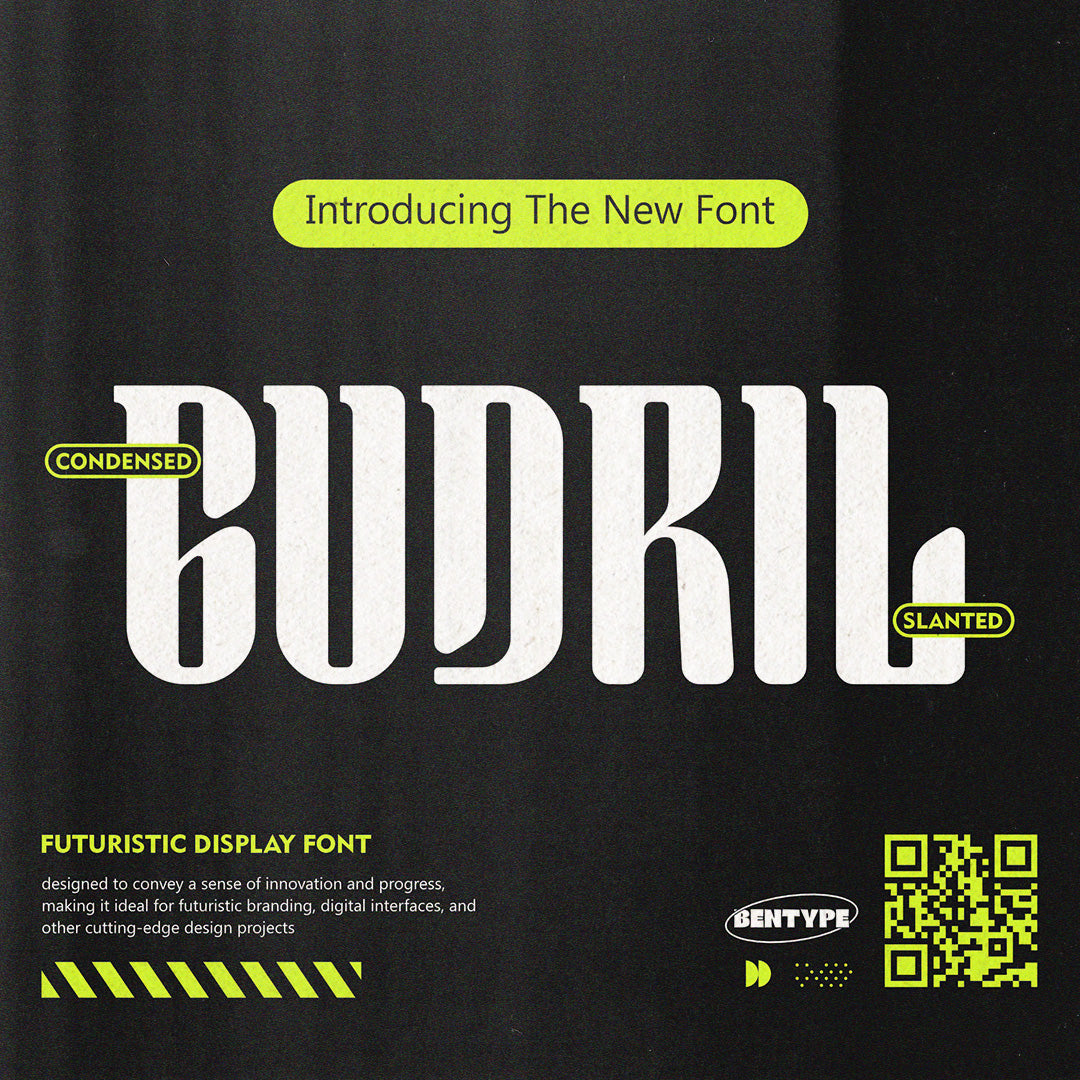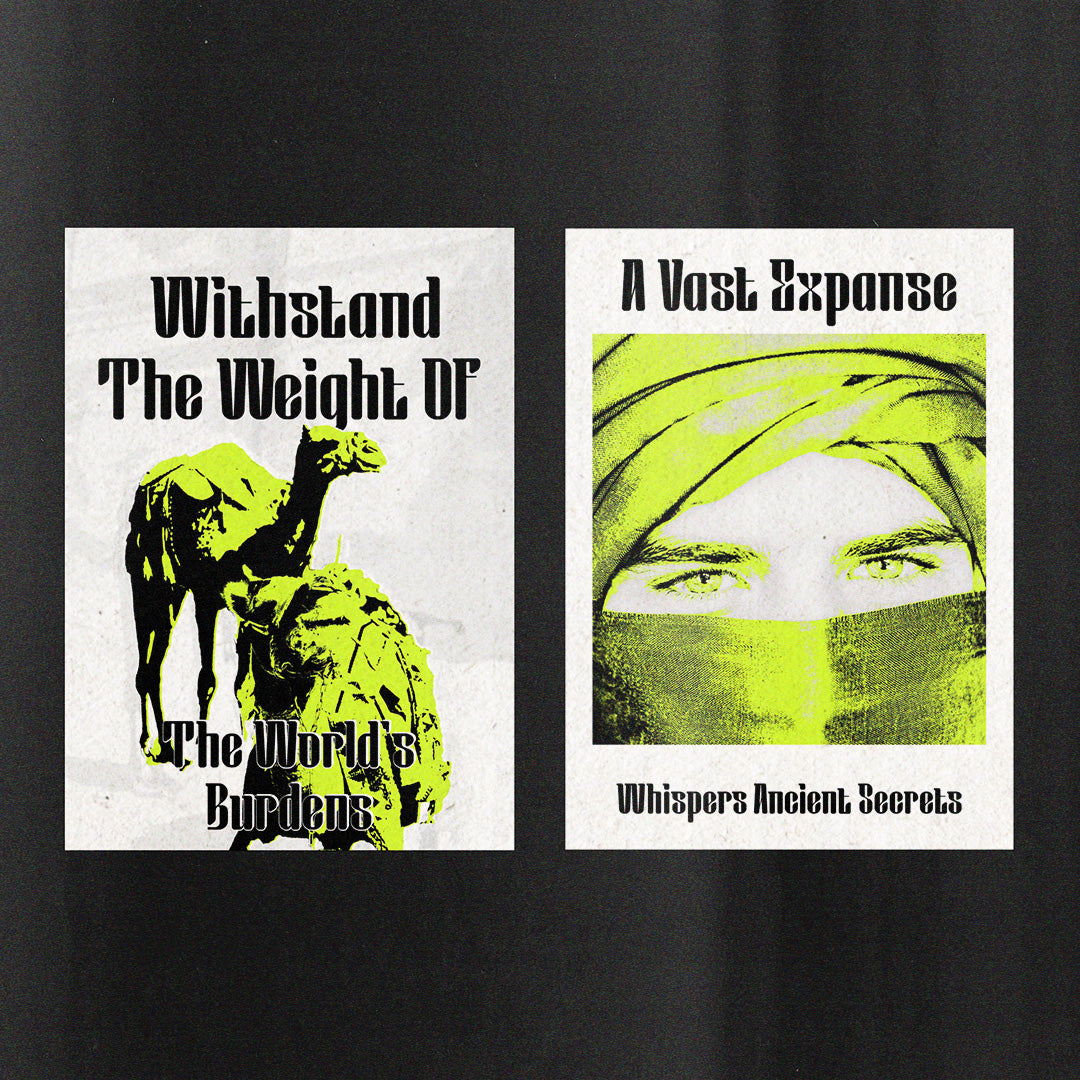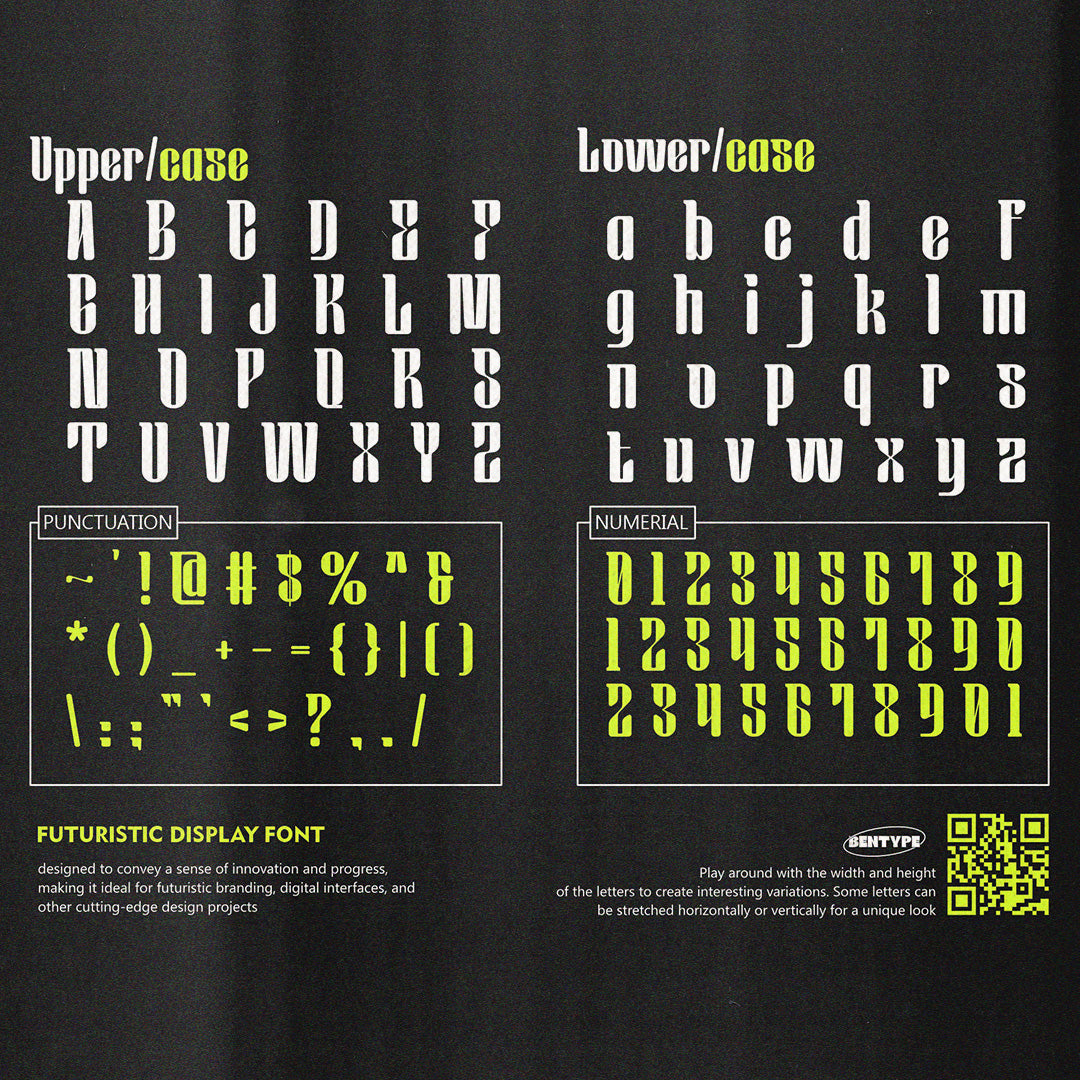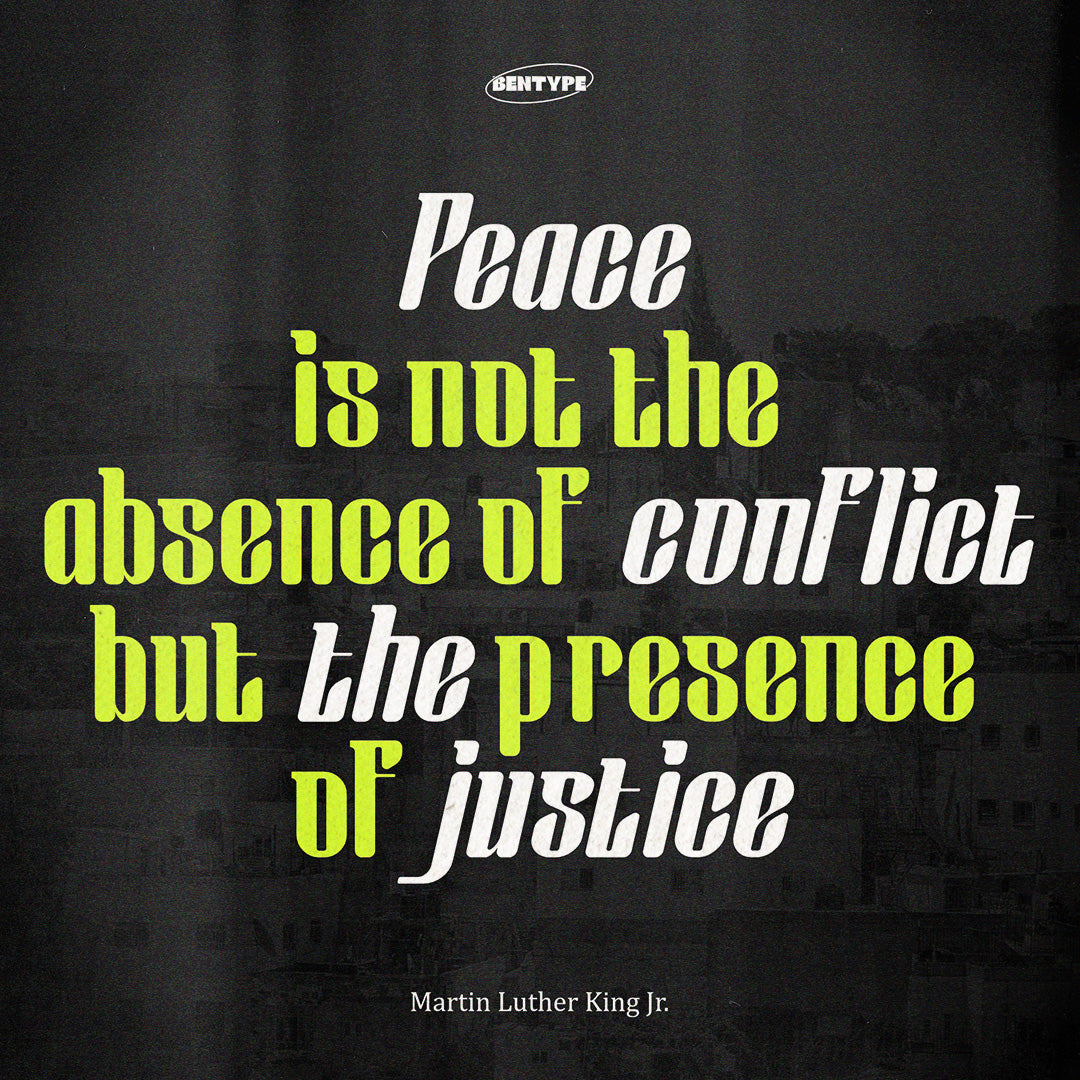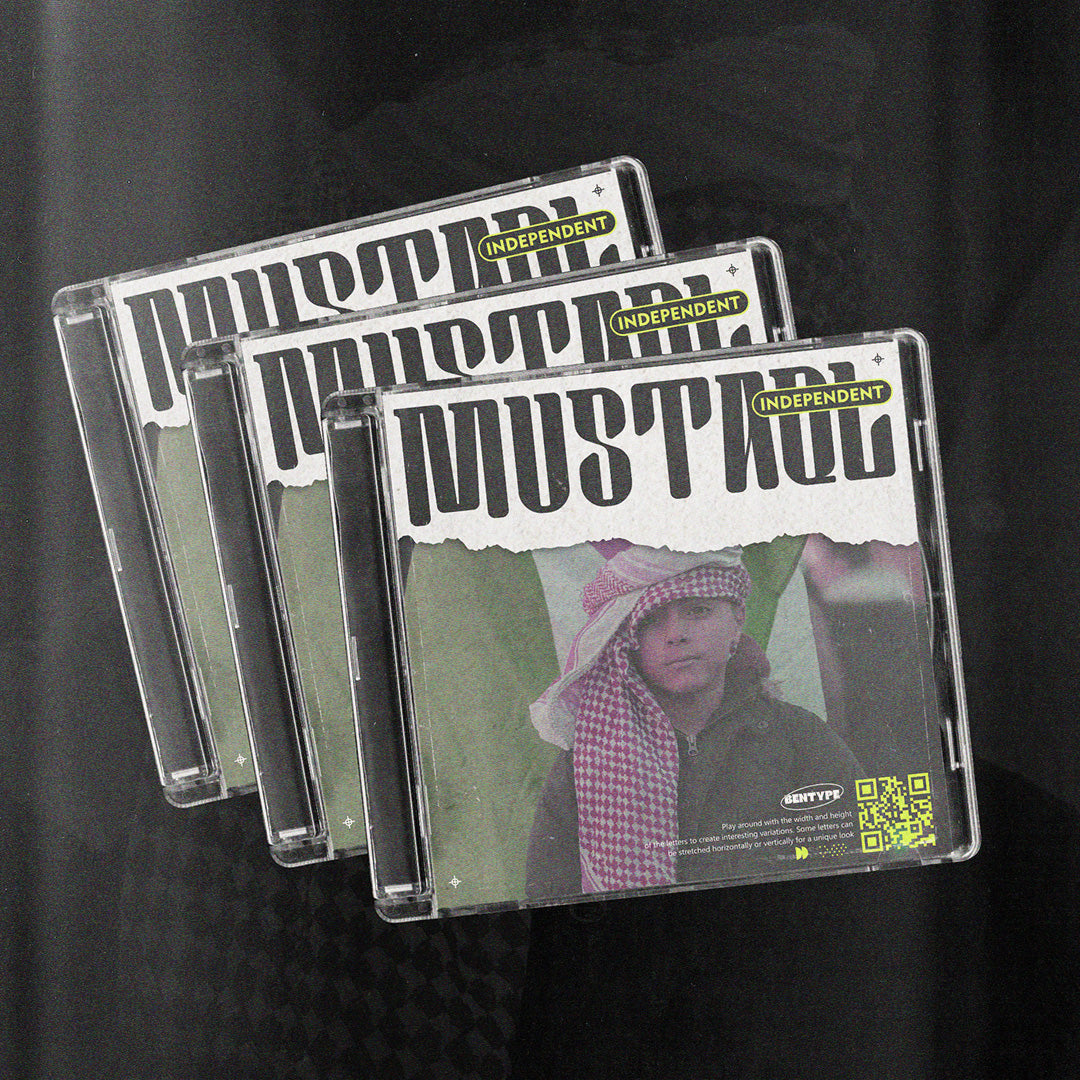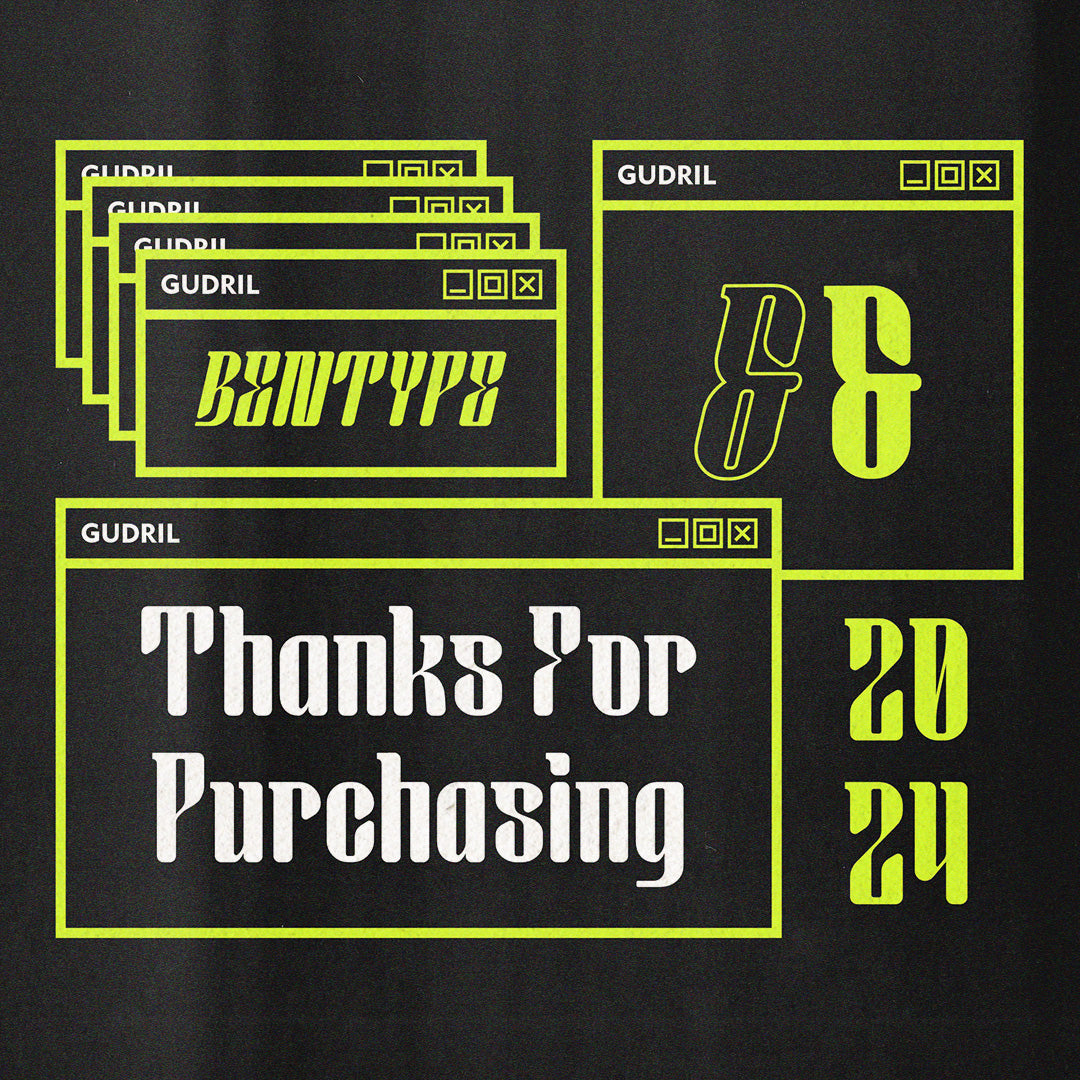
Gudril - Futuristic Display font
Bentype Studio
Gudril - Futuristic Display fonts embody the spirit of innovation, technology, and forward-thinking design. Gudwil - Futuristic Display fonts typically feature sleek, clean lines, geometric shapes, and often incorporate elements that convey a sense of futurism, such as sharp angles, unconventional letterforms, and dynamic spacing.
Gudril is a futuristic display font featuring geometric shapes and sharp angles, available in regular and slant styles. It includes uppercase and lowercase letters, numbers, and punctuation.